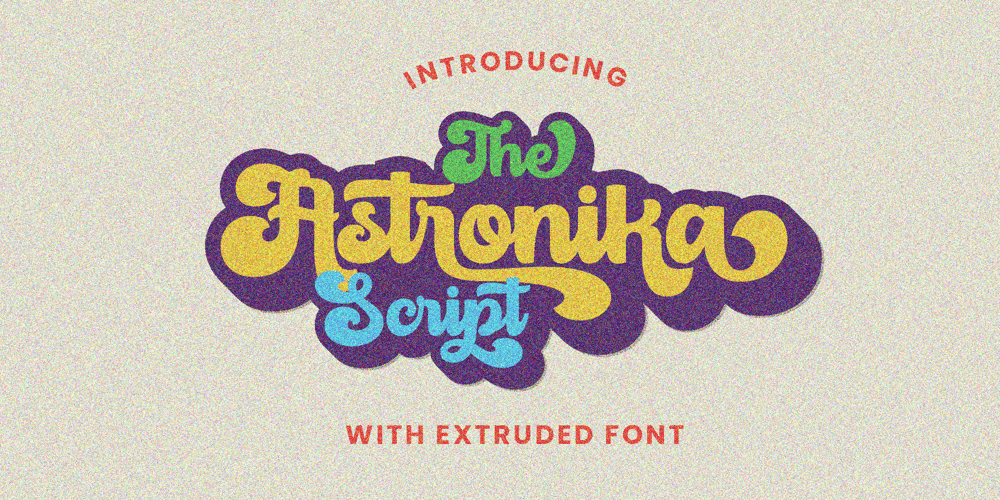
Astronika Font Family was designed by Dida Ahluddin and published by ahweproject. Astronika contains 2 styles and family package options. Astronika Font is a retro bold script style font. Inspired from retro typography and lettering in the 70’s and 80’s combine with bold typography style. This font perfect for vintage and retro design, badge, logos,t-shirt, poster, branding, packaging, signage, book coverand so much more!it has an extensive lingual support, covering European and Asian Latin scripts. The font contains all characters you’ll ever need, including all punctuation and numbers.Whats Include:Multilingual Support Alternates, Extrude/ShadowThankyou